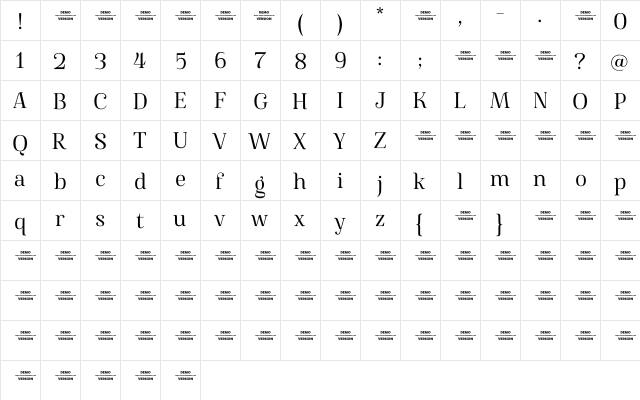
Famosa Regular Demo
Design Context for Famosa Typeface
Famosa is a composed and adaptable typeface that performs quietly and consistently across a wide range of design contexts.
Pro Tip: Pair Famosa with a font of contrasting weight or personality to build a more expressive typographic hierarchy.